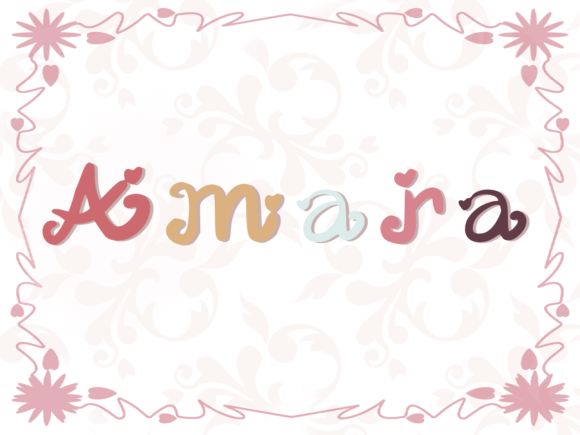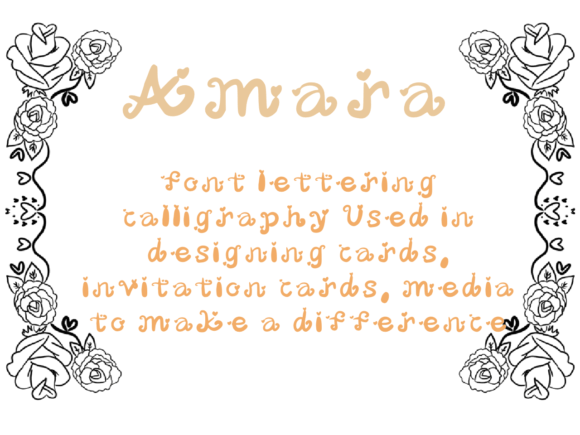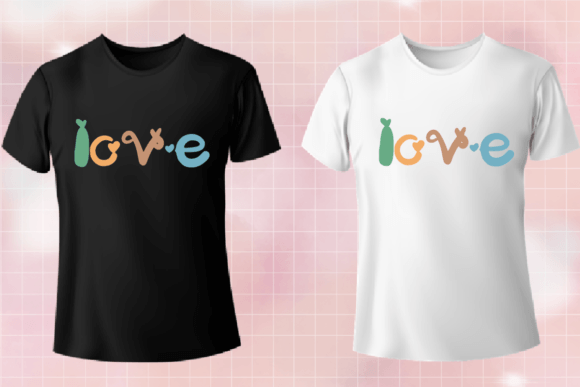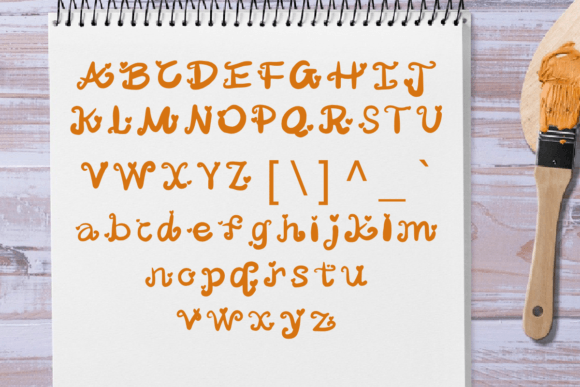
Amara Font
An Exquisite and Elegant Handwritten Script
Amara is a stunning handwritten font crafted to bring elegance and style to your creative projects. Each letter features smooth, flowing strokes and well-balanced shapes that feel refined and graceful. The design combines classic calligraphy influences with a modern touch, making it perfect for work that needs sophistication with a fresh look.
Whether you’re creating professional branding or personal stationery, Amara helps your text look unforgettable and polished.
Amara is a versatile font that adapts seamlessly to a variety of uses. It’s ideal for wedding invitations, save-the-date cards, and event signage. The romantic script style creates a warm and memorable atmosphere for any special occasion.
Use Amara for logos, business cards, and brand identities. The elegant curves make your brand feel premium while staying approachable and modern.
This font also works beautifully for product packaging, boutique labels, and handmade goods. The clean lines help your products feel high-end and thoughtfully designed.
Amara is perfect for social media graphics, blog headers, and Pinterest pins. No matter where you use it, the font delivers a refined look that draws attention.
The font includes uppercase and lowercase letters, numbers, and punctuation marks. Ligatures are included so your text flows naturally and looks cohesive.
Clear, Sophisticated, and Easy to Read
Even with its decorative style, Amara remains clear and legible in any size. The balanced spacing between letters keeps your text tidy and professional, whether you’re designing large titles or small captions.
Many designers pair Amara with a clean sans-serif font for visual contrast. Use Amara for main titles and the sans-serif for supporting text. This pairing guides the reader’s eye and keeps layouts feeling modern and clean.
To highlight Amara’s elegance, use soft backgrounds and neutral colors. Shades like ivory, blush, and warm gray help the graceful strokes stand out without distraction.
When designing wedding materials or luxury packaging, consider adding delicate floral illustrations or watercolor textures to complement the romantic style. For social media and marketing materials, keep layouts simple so the script remains the focus.
Think about the mood you want to create. Amara is perfect for designs that should feel timeless, warm, and sophisticated.
Amara is more than just a handwritten script font. It’s a creative tool that transforms simple text into something beautiful and memorable. Its clean curves and graceful shapes bring personality and elegance to any project.
Adding Amara to your font collection gives you a reliable option for all kinds of creative work. From weddings and branding to packaging and social media, this font adapts easily to your ideas.